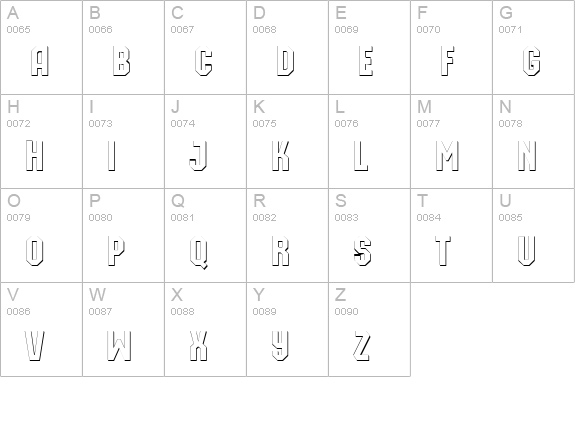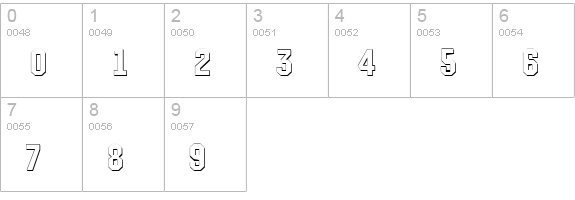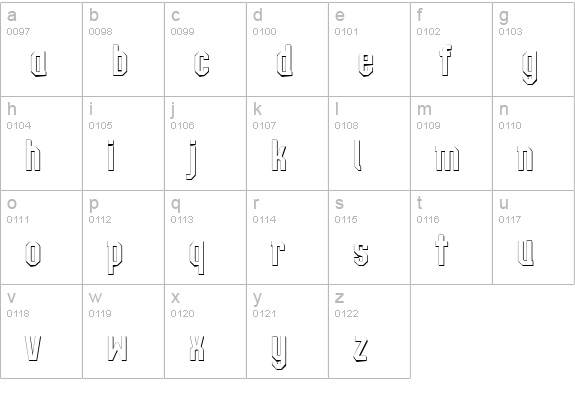
a_Technics3D DemiBold Font Details
a_Technics3D DemiBold is a sub-bold, structured variant in the a_Technics3D typeface family \xE2\x80\x94 well suited to sub-headlines and emphasised passages.
The Technics3D DemiBold font is a modern and sleek typeface that exudes confidence and sophistication. Its bold and distinctive letterforms make it perfect for headlines, titles, and branding materials. The clean lines and sharp angles give this font a futuristic and high-tech look, making it ideal for projects that require a contemporary touch. What sets Technics3D DemiBold apart is its versatility - it can work equally well in both digital and print design projects. Whether you're creating a website, a poster, a logo, or any other design piece, this font will help your message stand out and make a lasting impact. The best part? Technics3D DemiBold is available for free download at FontsMarket.com. So you can easily incorporate this stylish font into your projects without breaking the bank. Don't miss out on this fantastic opportunity to enhance your designs with the bold and modern appeal of Technics3D DemiBold font.